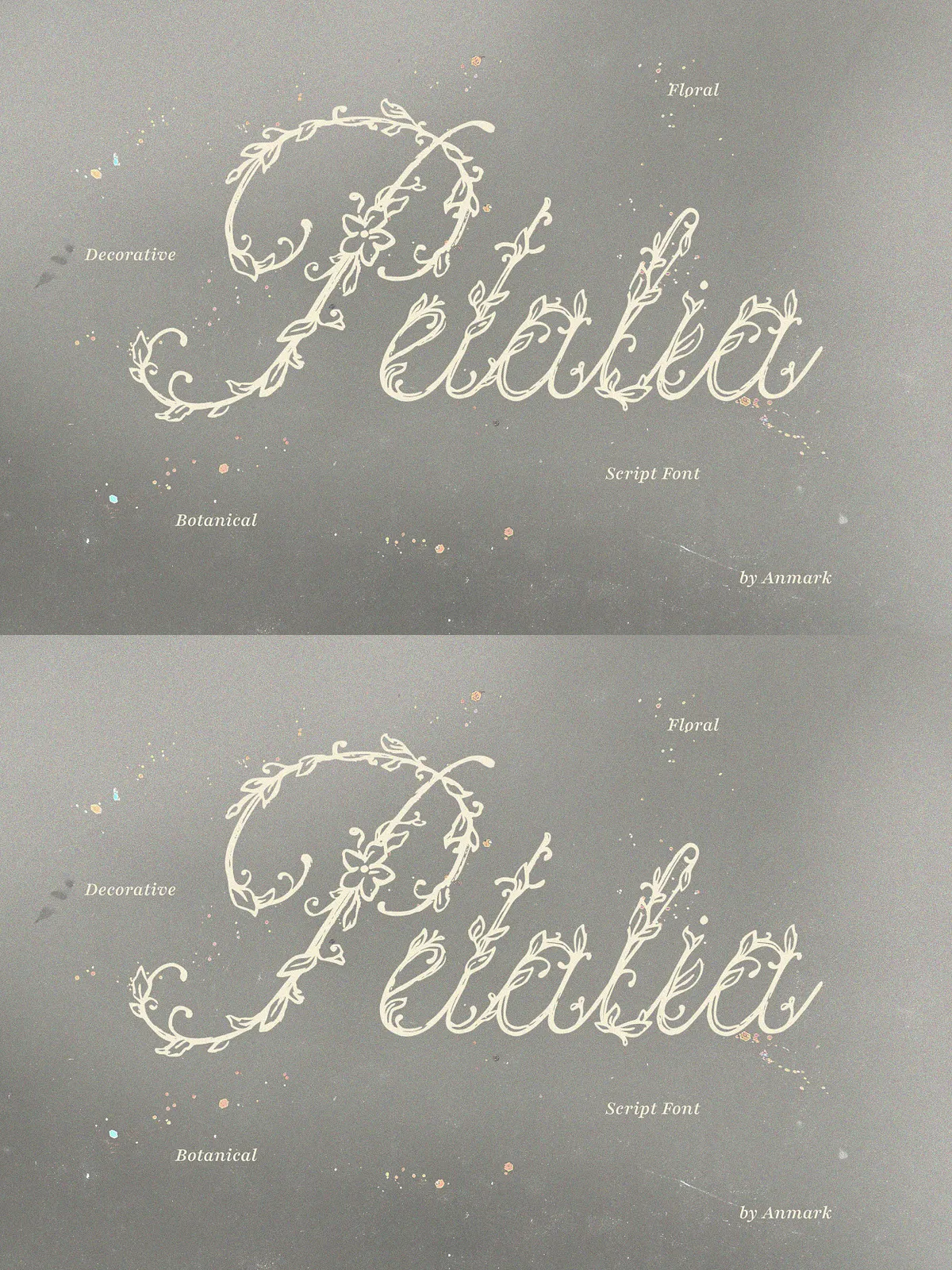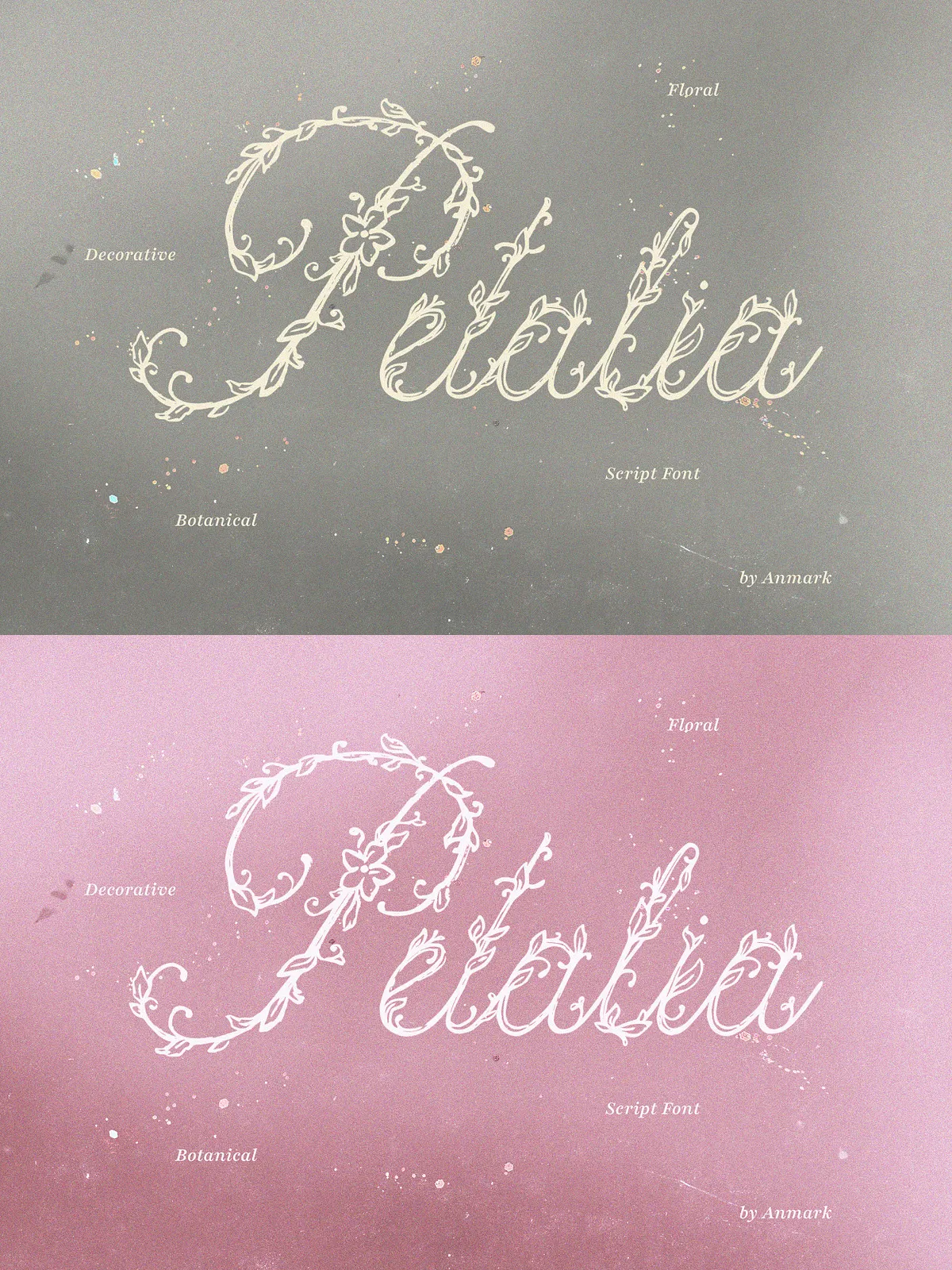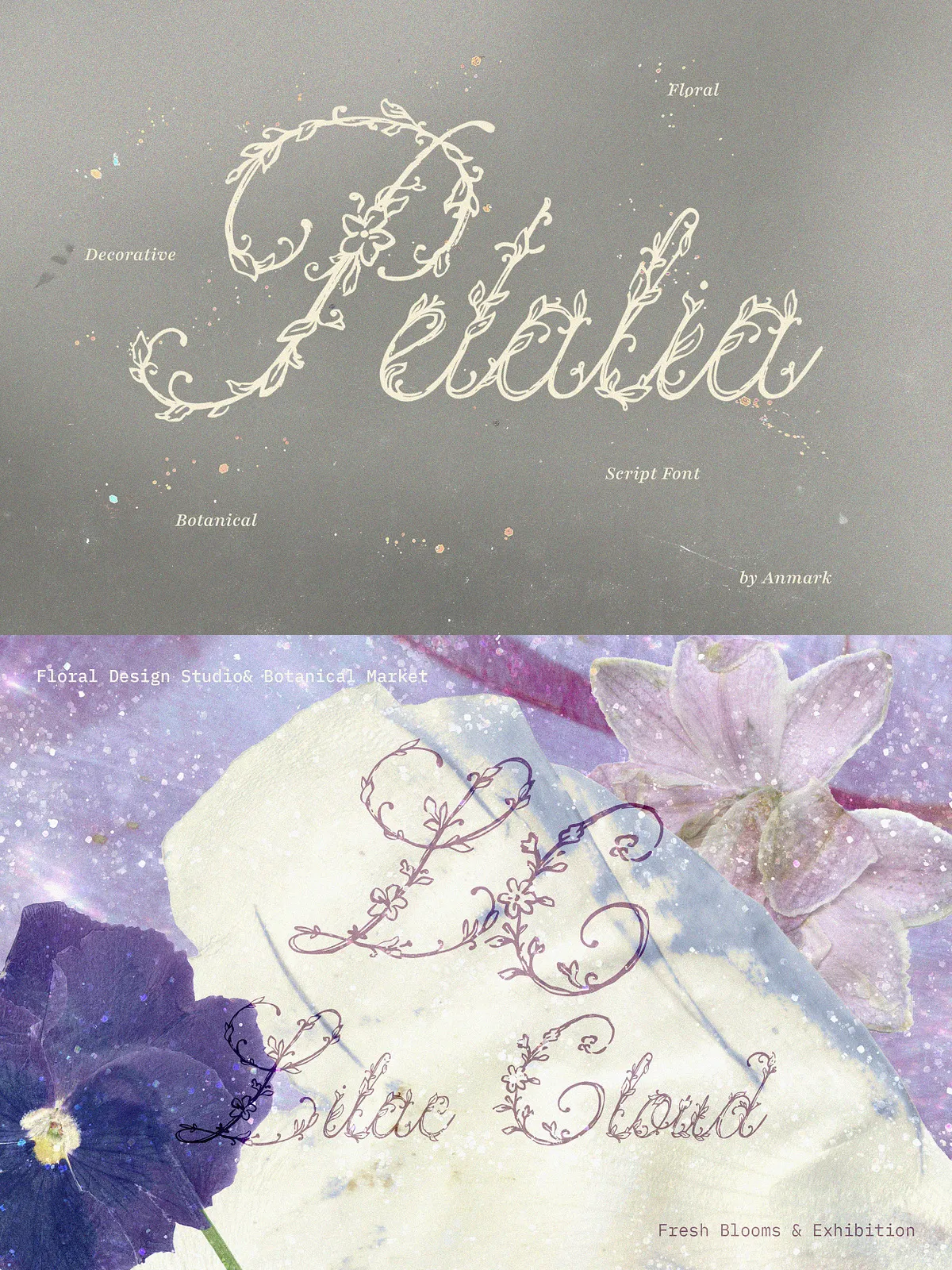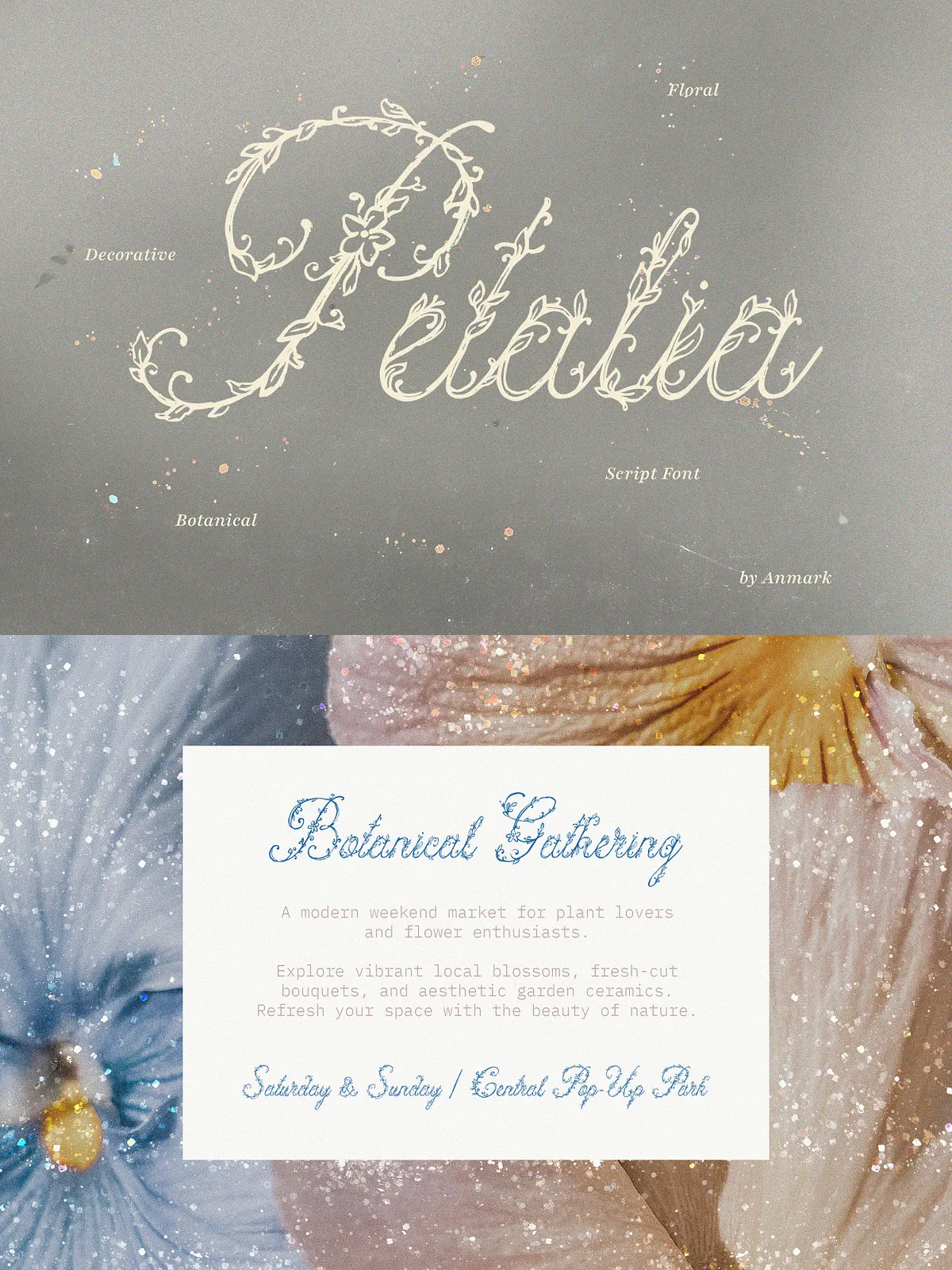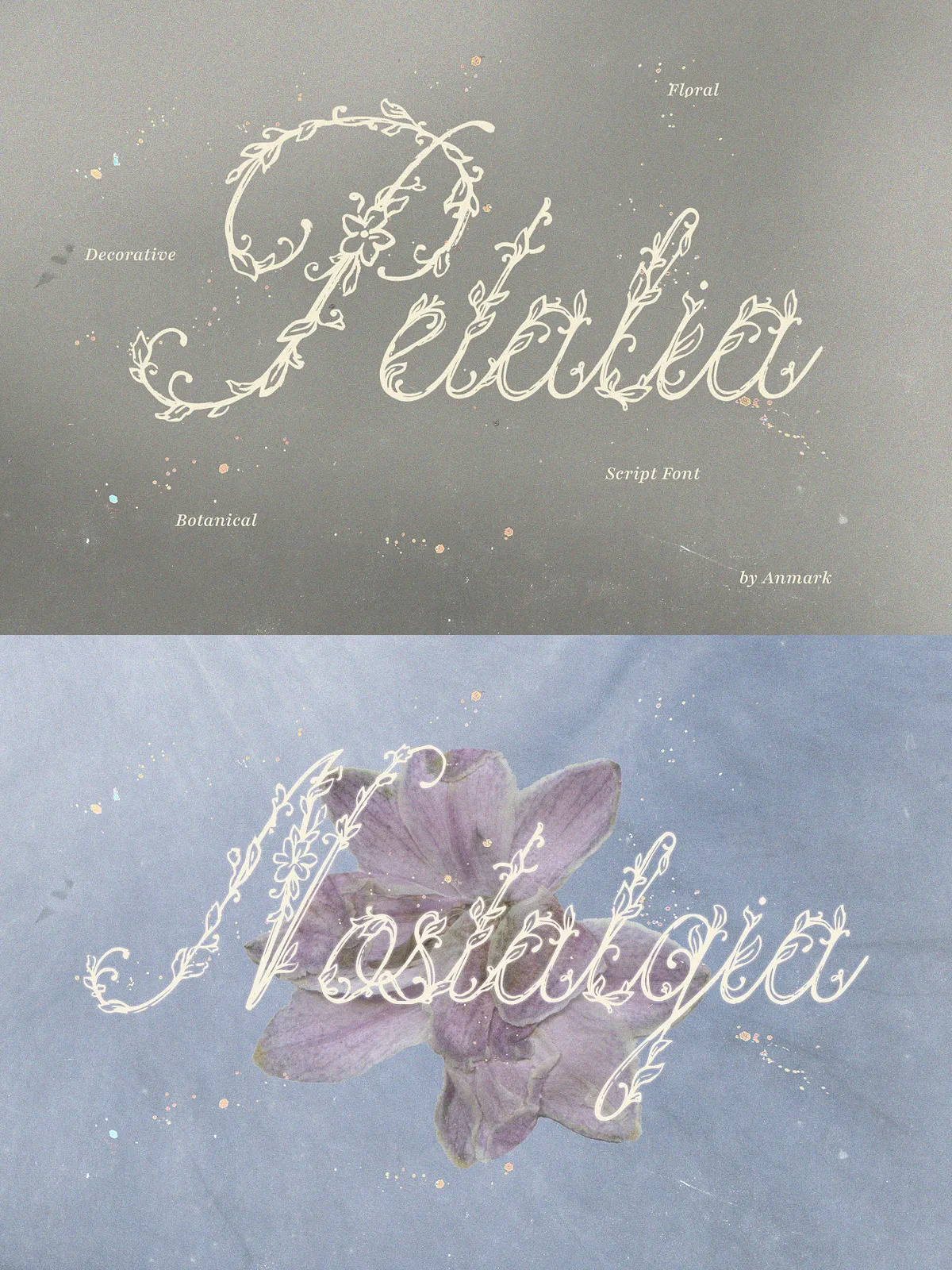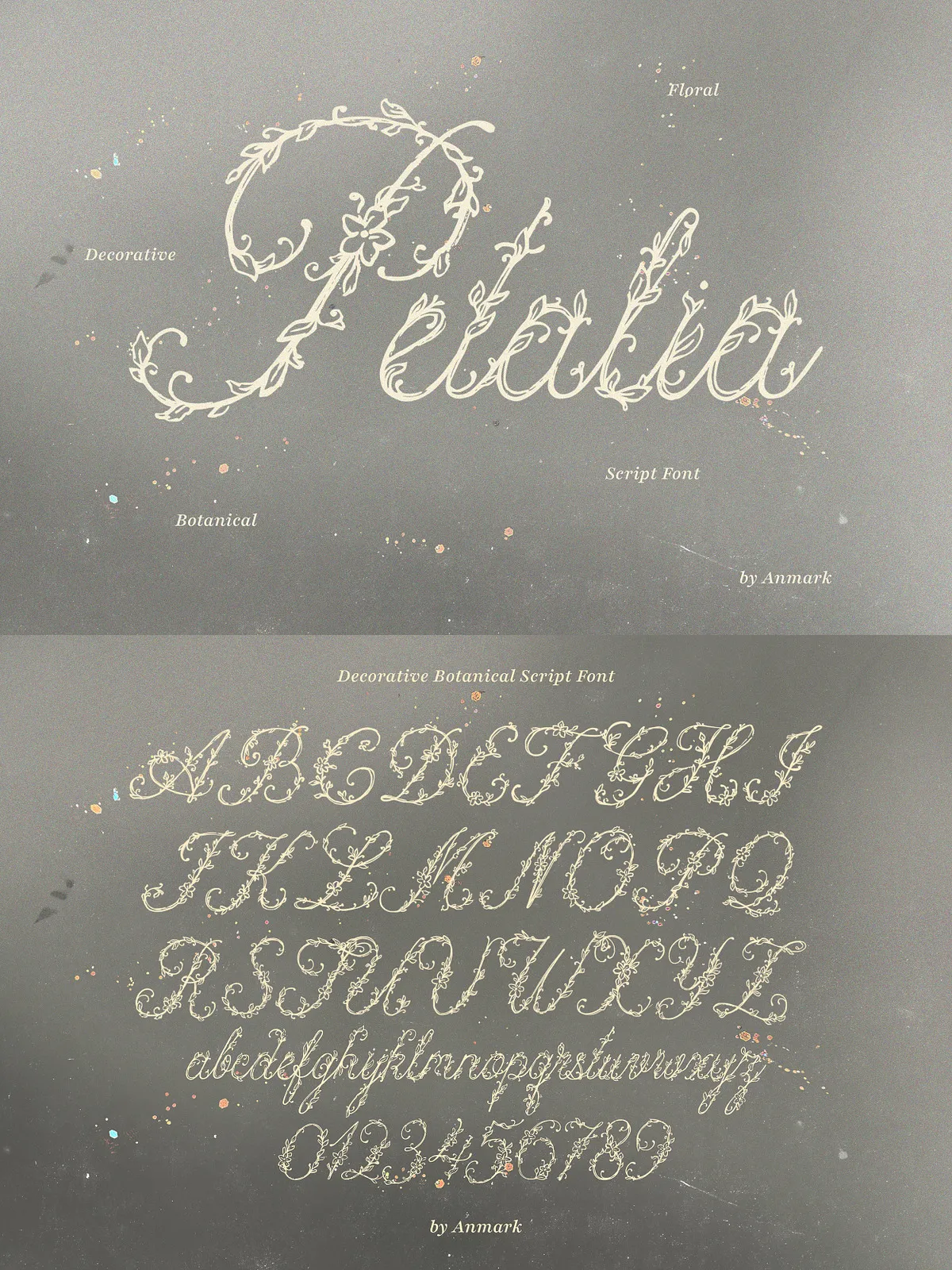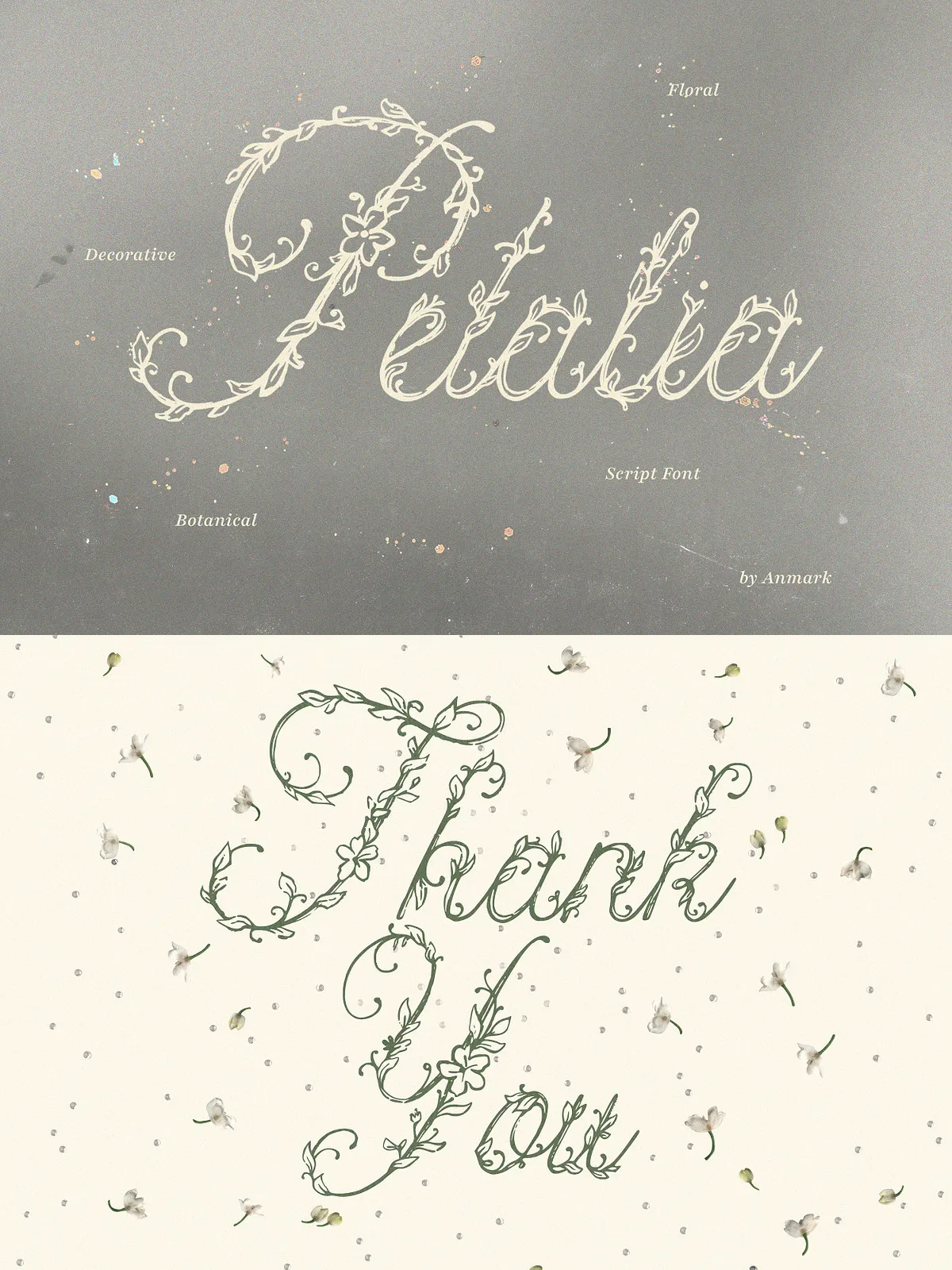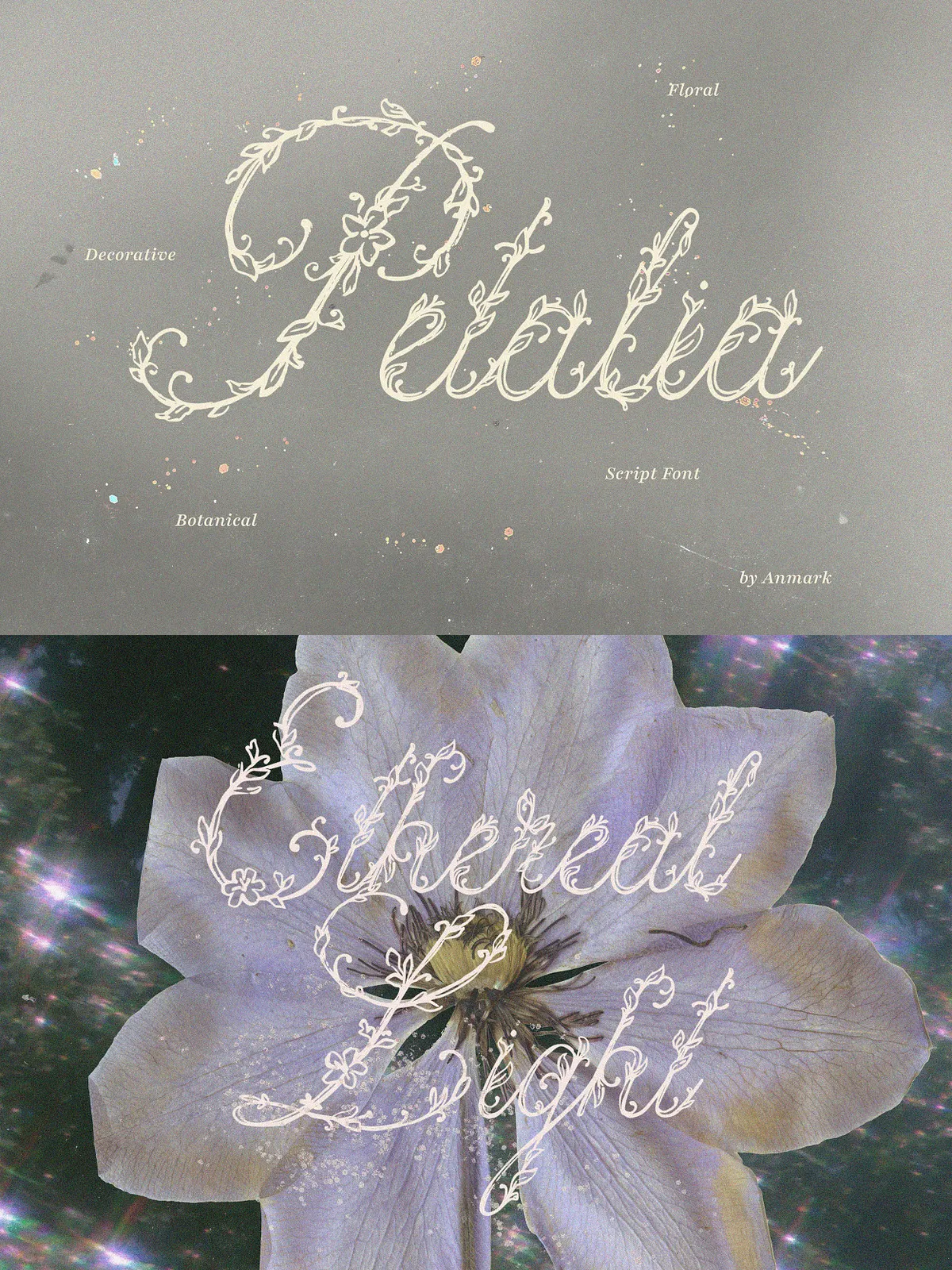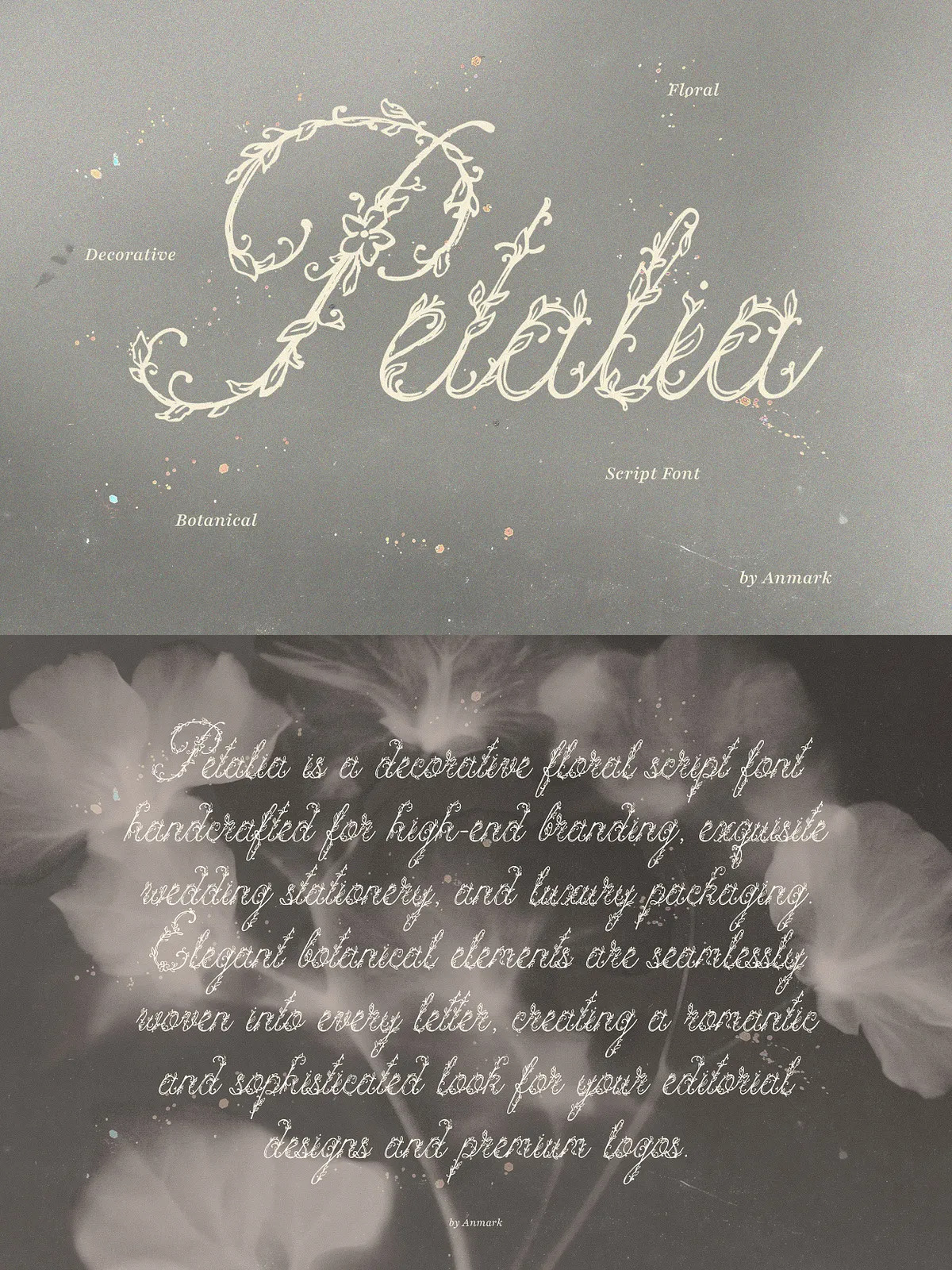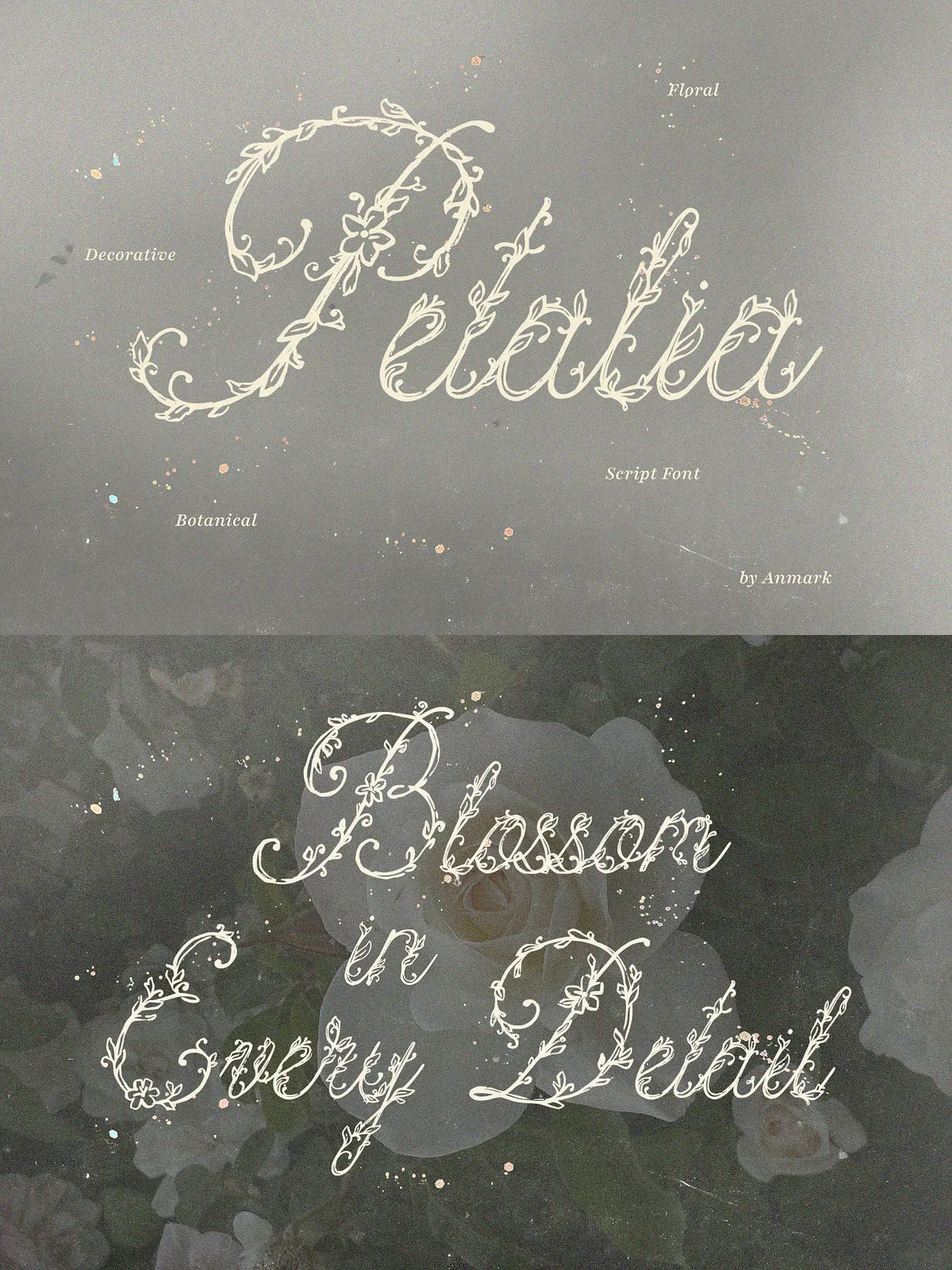
Petalia Decorative Floral Font
Petalia is an elegant calligraphic script that blends refined letterforms with intricate botanical decoration. Every glyph carries handcrafted flowers, delicate petals, and winding leaves, creating a decorative typeface that functions as both text and visual ornament. Use Petalia when you want typography to do more than speak — let it present artful detail and natural beauty at every scale.
Design Overview
A Botanical Calligraphic Approach
Petalia combines traditional calligraphic strokes with ornamental botanical motifs. Each character receives careful attention: floral swashes wrap stems, leaf accents follow terminals, and petal clusters nestle within ascenders and descenders. The result reads as a cohesive, decorative script that maintains legibility while delivering a high-end, handcrafted aesthetic.
Craftsmanship and Detail
The font emphasizes artisanal detail. Designers who select Petalia gain a typeface that showcases visible hand-drawn texture and deliberate composition. These details elevate logos, monograms, and headlines into distinctive visual statements without requiring additional illustration work.
• Hand-decorated letterforms with floral ornaments integrated into each glyph.
• Balanced calligraphic structure that preserves readability for display and headline use.
Recommended Uses
Petalia excels wherever refined, botanical elegance will reinforce a brand or product story. Apply this font to:
• Luxury branding and bespoke identity systems that require a floral, handcrafted voice.
• Wedding invitations, envelopes, place cards, and stationery suites that call for romantic, detailed typography.
• Monograms and seals for boutique businesses, artists, and premium product lines.
• Cosmetic and fragrance packaging where ornamented type enhances perceived value.
• Editorial covers and magazine headlines that benefit from artistic, eye-catching letterforms.
• Greeting cards, certificates, and limited-run print artworks that demand visual distinction.
Pairing and Styling Tips
Complementary Typefaces
Pair Petalia with a neutral sans serif or a restrained serif to balance its ornamentation. Use simple, clean body text to let the script remain the primary visual focus. When combining, preserve generous margins and avoid dense patterns that compete with its decorative strokes.
Color, Texture, and Application
Apply Petalia in metallic foils, letterpress, or embossed printing to accentuate its botanical details. For on-screen use, choose high-contrast color palettes and appropriate anti-aliasing to retain stroke clarity. Subtle background textures — natural papers or soft gradients — enhance the handcrafted feel without obscuring the glyphs.